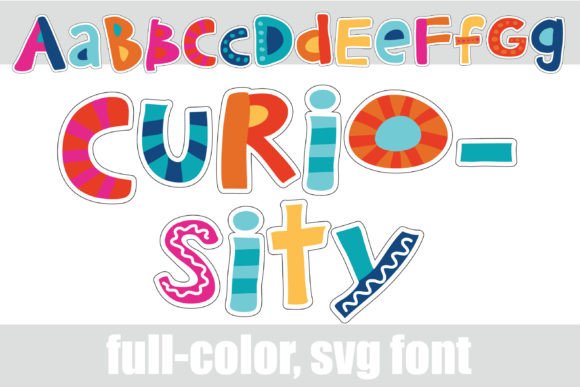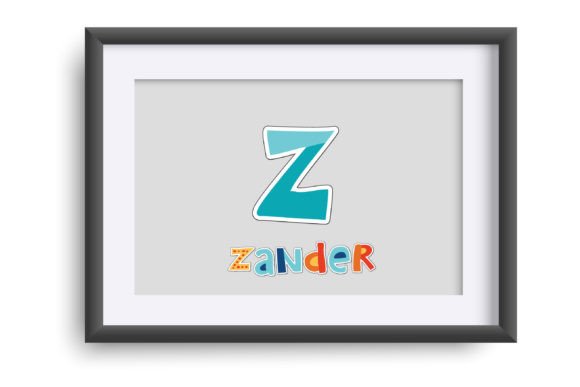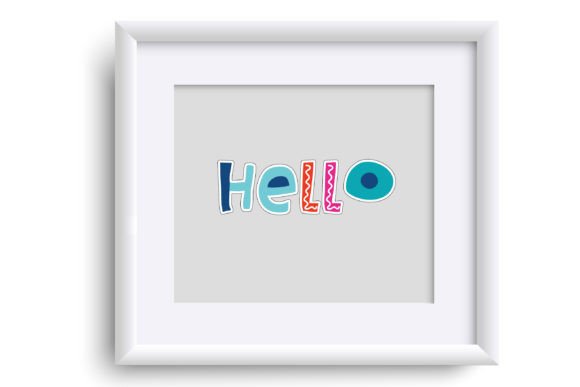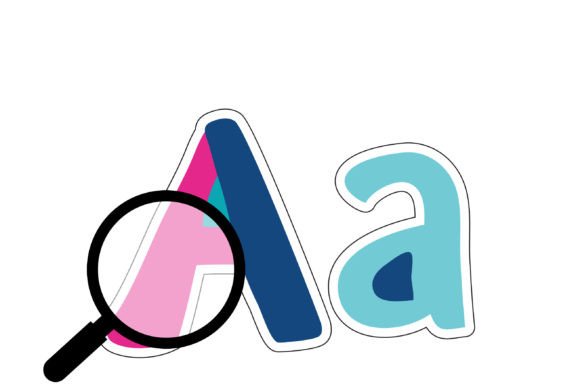
Curiousity Font
About the Curiousity Font
Crafted with precision, the Curiousity Font is ready to bring your ideas to life. This full-color font features a creative, crafty font in a hot, summer color palette. There is an alt case w/ additional colors you can access through your system or Silhouette’s glyph map. This font works best for titles, displays, posters and more. Please note color fonts will show as black in non compatible programs. This font type is compatible with Silhouette Studio.